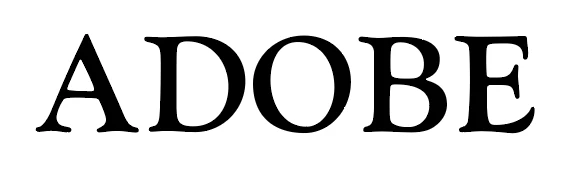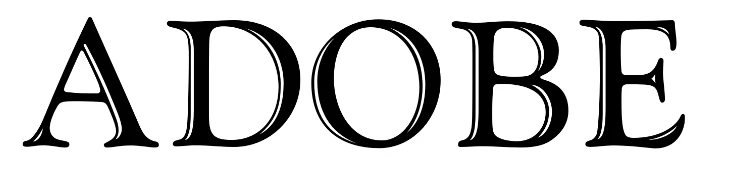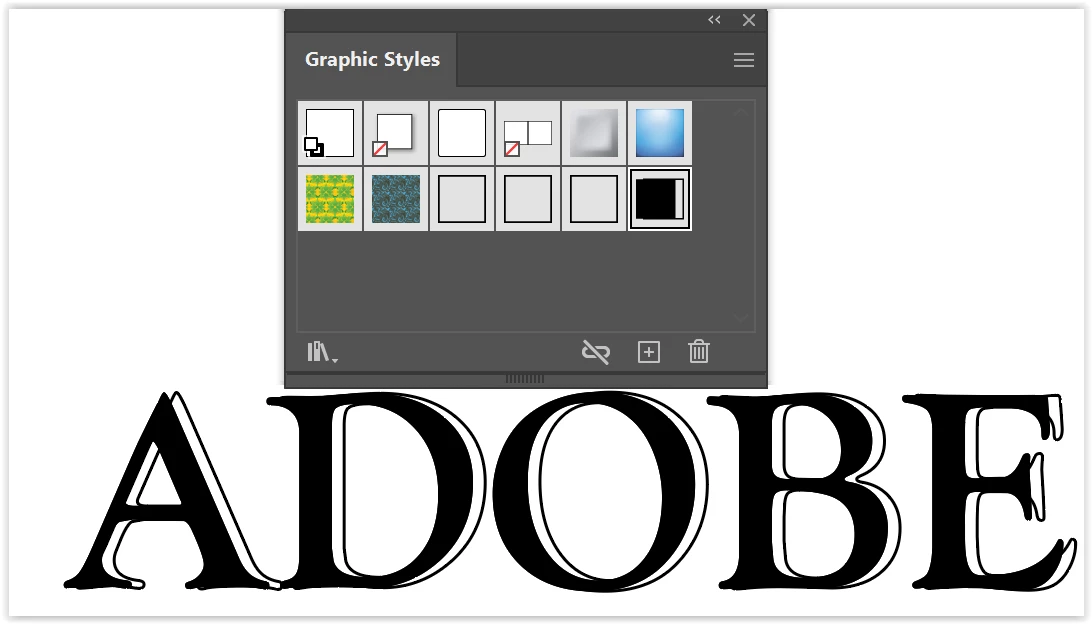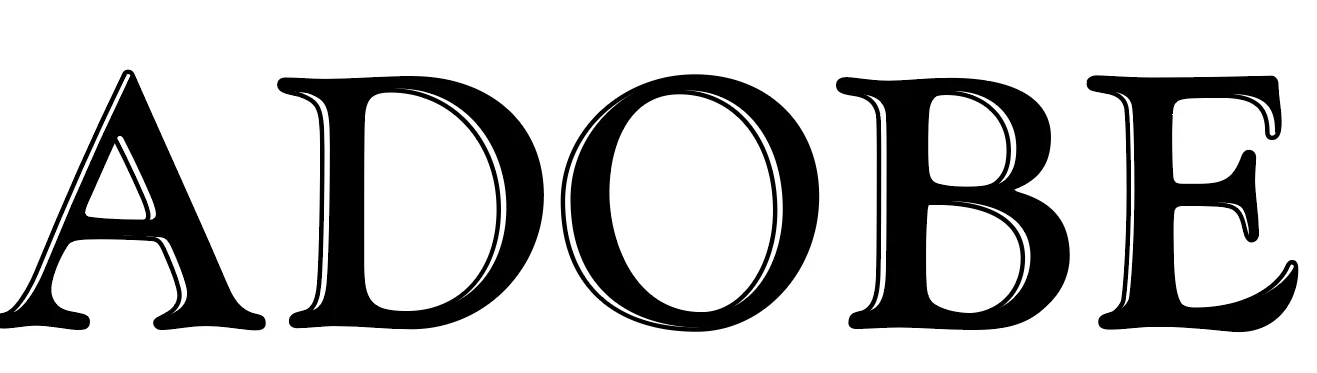
How to make that effect on font (tooled?)
I have LTC Goudy Oldstyle Pro font from Adobe fonts
and want to have effect like this?
Is it possible to do this in "easy" way?
I don't know if you'll consider this 'easy', but this is one way you could do it in Illustrator.
Type your text and fill it with black (or whichever fill color you want).
Select the text with the Selection tool.
In the Appearance panel, choose the same fill color you chose before.
In the Appearance panel flyout menu, choose Add New Stroke. Choose a stroke color and weight.
In the Appearance panel, click to highlight the stroke.
Click the 'fx' button at the bottom of the panel and choose Distort & Transform > Transform.
In the Transform dialog box, drag the Horizontal Move slider to offset the stroke.
To avoid having to repeat these steps, select the text with the Selection tool, and drag it into the Graphic Styles panel to create a new graphic style.
Whenever you want to repeat the style, simply select the text you want to apply the style to with the Selection tool and click on the style in the Graphic Styles panel.
And I found a way to make it even better
For future questions on the same topic: And how does the process you discovered work?
Goudy Handtooled has been included in the fonts bundle of some rival graphics applications (Macromedia Freehand, Deneba Canvas and CorelDRAW to name a few). Those "cuts" were made by either URW or Bitstream. Both of those companies were absorbed by Monotype over the years.
I thought Goudy Handtooled was also included in MS Office, but that's wrong. Office just has a couple or so weights of Goudy Old Style.